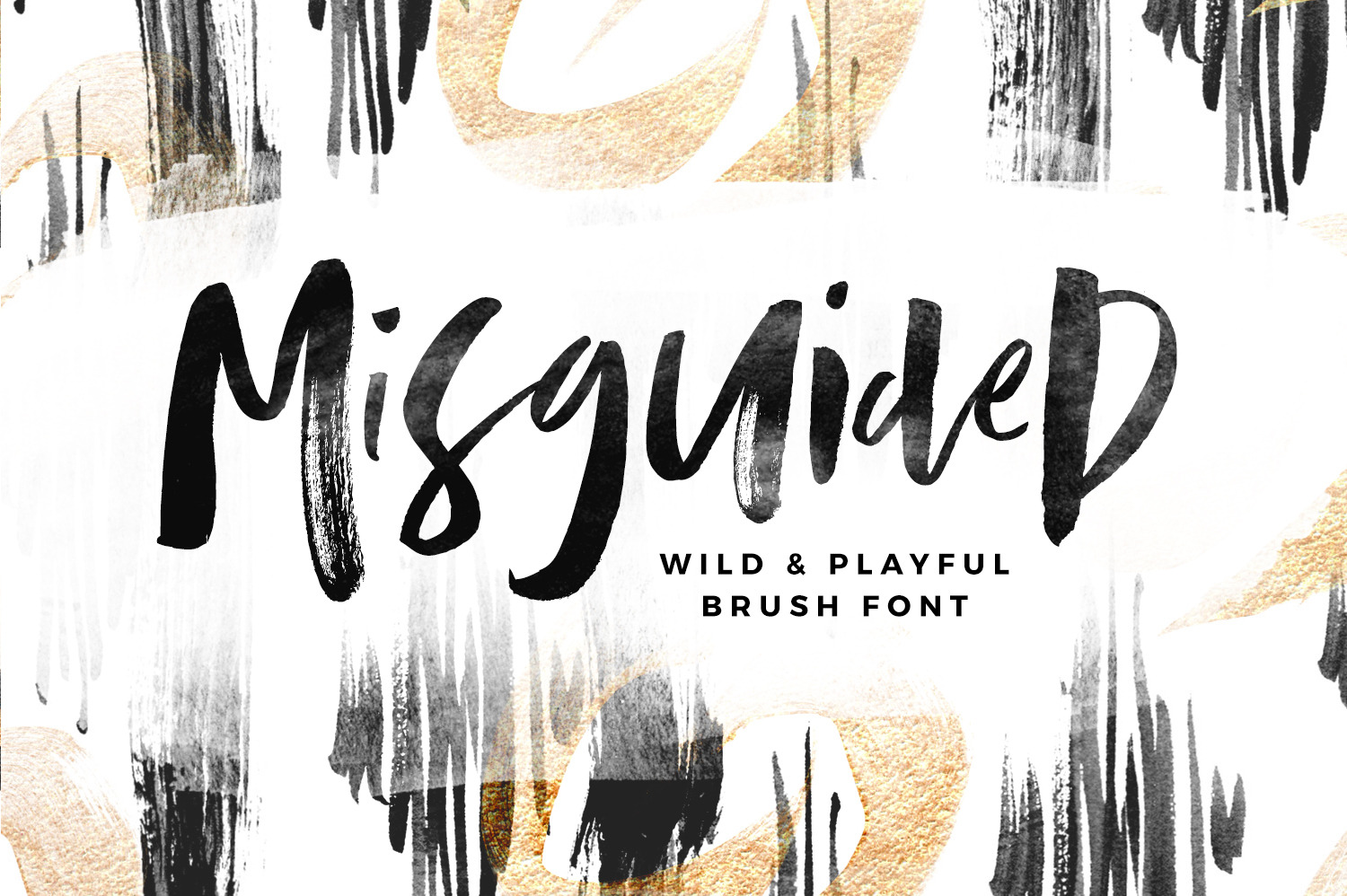
Misguided Brush Font
Misguided; "to go astray". This brush font throws out the typography rulebook and breaks away from the mundane letterforms. Thick lines, thin lines, small letters, big letters - it has it all, and thrown into THREE hand-painted character sets which can be mixed up, lowercase or uppercase, giving you a massive amount of customisable layout options for each word. Misguided is guaranteed to add an eye-catching appeal to your logo designs, handwritten quotes, product packaging, merchandise & social media posts.
1. Misguided One • A hand-painted brush font containing upper & lowercase characters, numerals and a large range of punctuation.
2. Misguided Two • This is a second version of Misguided, with a completely new set of upper & lowercase characters. If you wanted to avoid letters looking the same each time to recreate a custom-made style, or try a different word shape, simply switch to this font for an additional layout option.
3. Misguided Three • You guessed it; a third version of Misguided, with another completely new set of upper & lowercase characters - giving you even MORE layout options for your text.